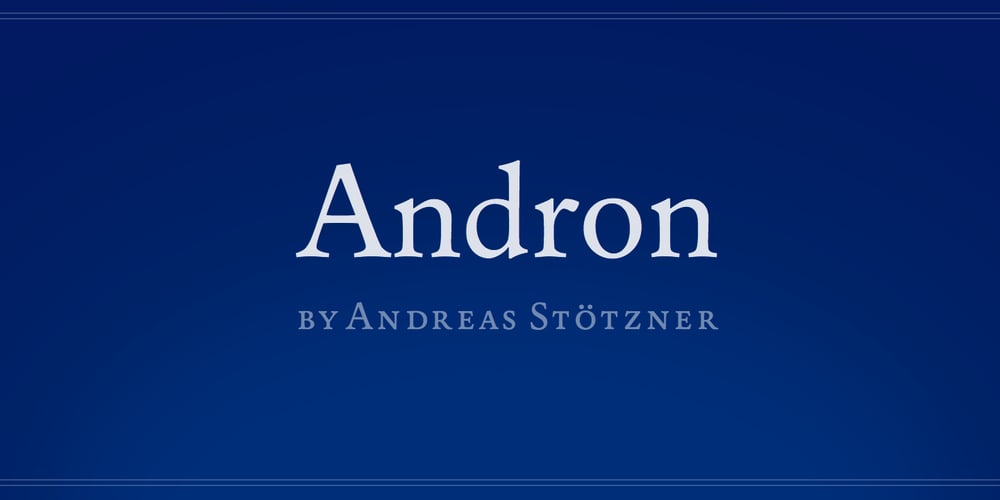
Andron 1 Latin Corpus Font Family was designed by Andreas Stötzner and published by SIAS. Andron 1 Latin Corpus contains 1 styles and family package options. Andron 1 Latin is one package of the Andron family which offers full support for virtually any European language written in Latin. Get one of the most distinguished text faces for high quality composing! You’ll like this package for its unique symbols coverage as well. Andron is a new design inspired by the best of classical Roman typefaces.